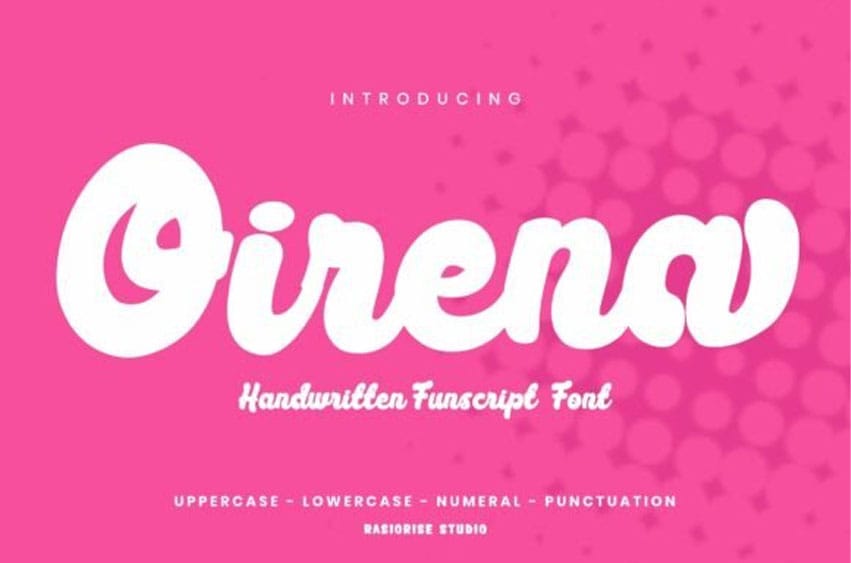
Oirena Font is a lovely and timeless handwritten font. It is the best choice for creating eye-catching logos, branding, and quotes.
Every letter has a unique and beautiful touch that will bring your design to life!